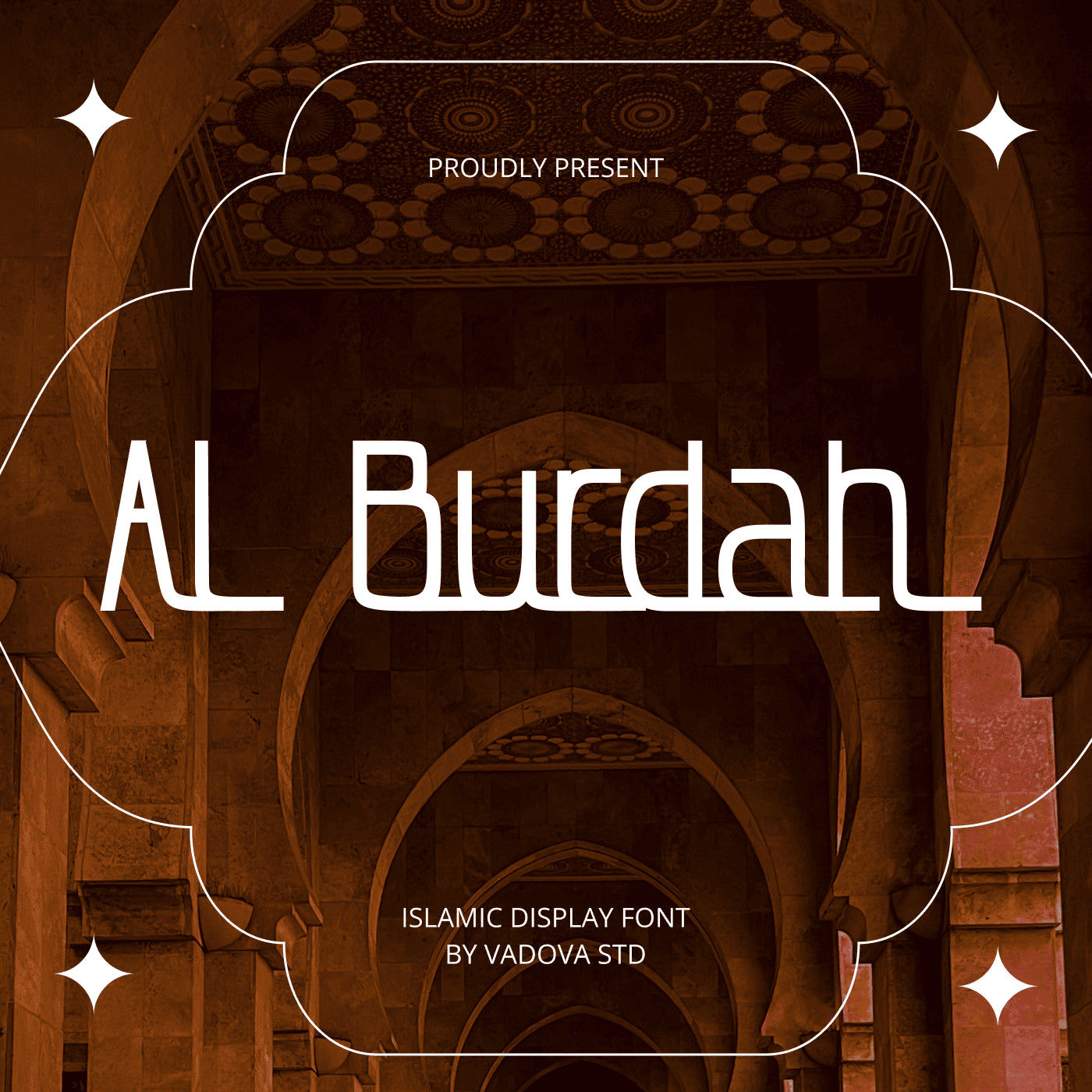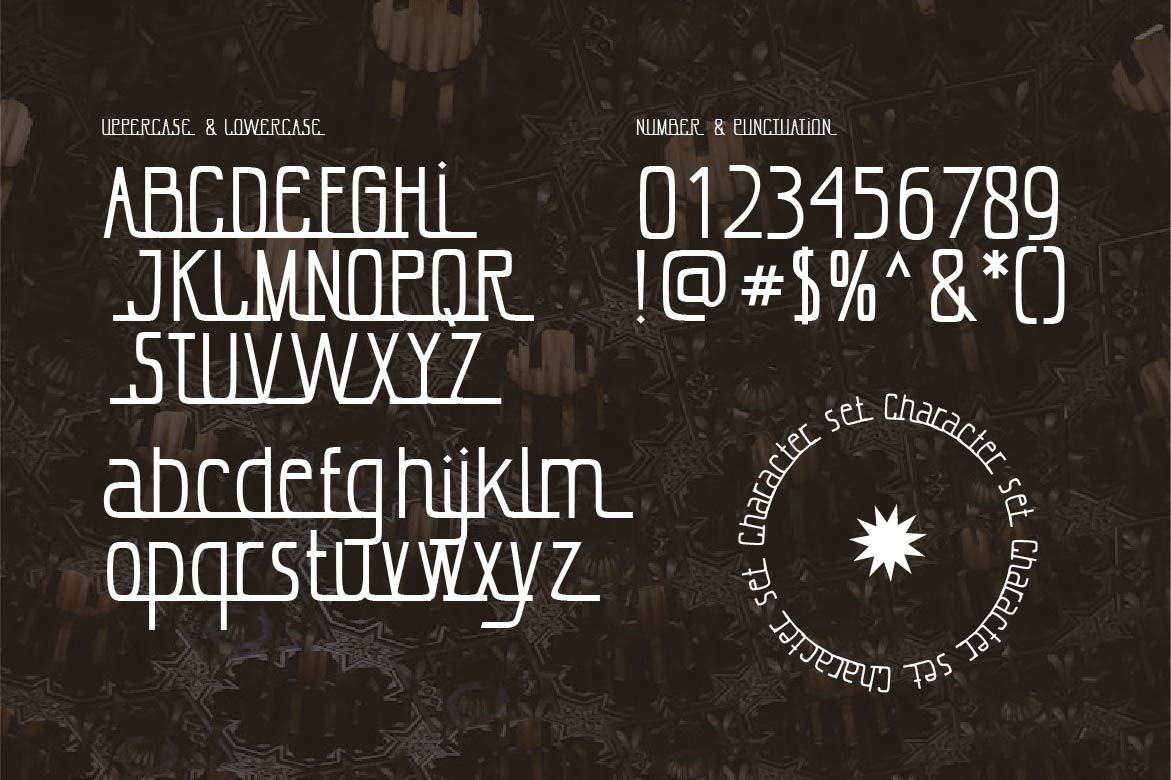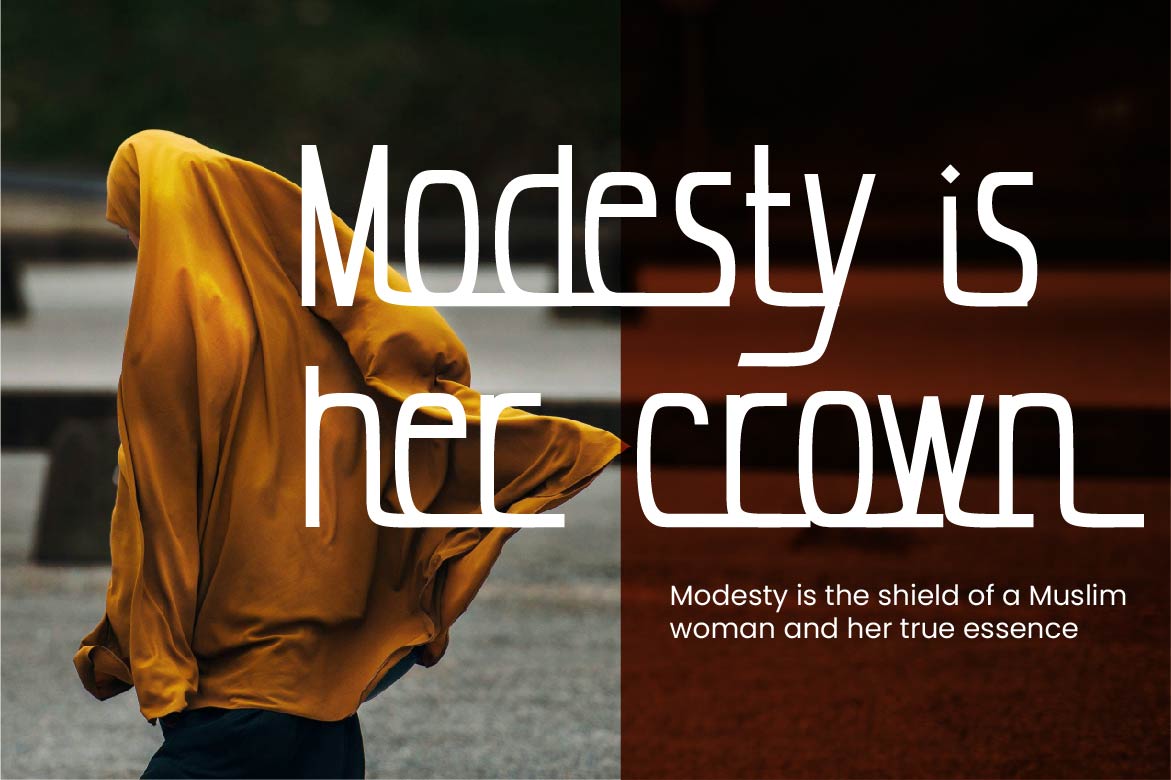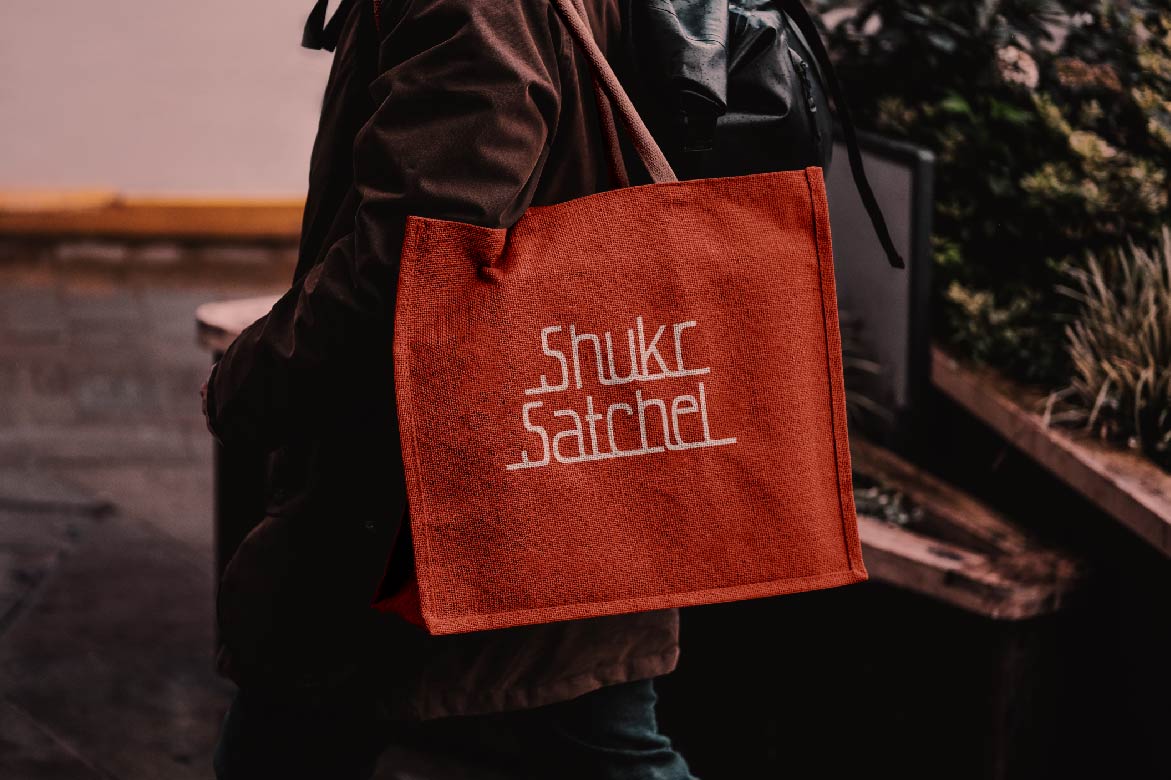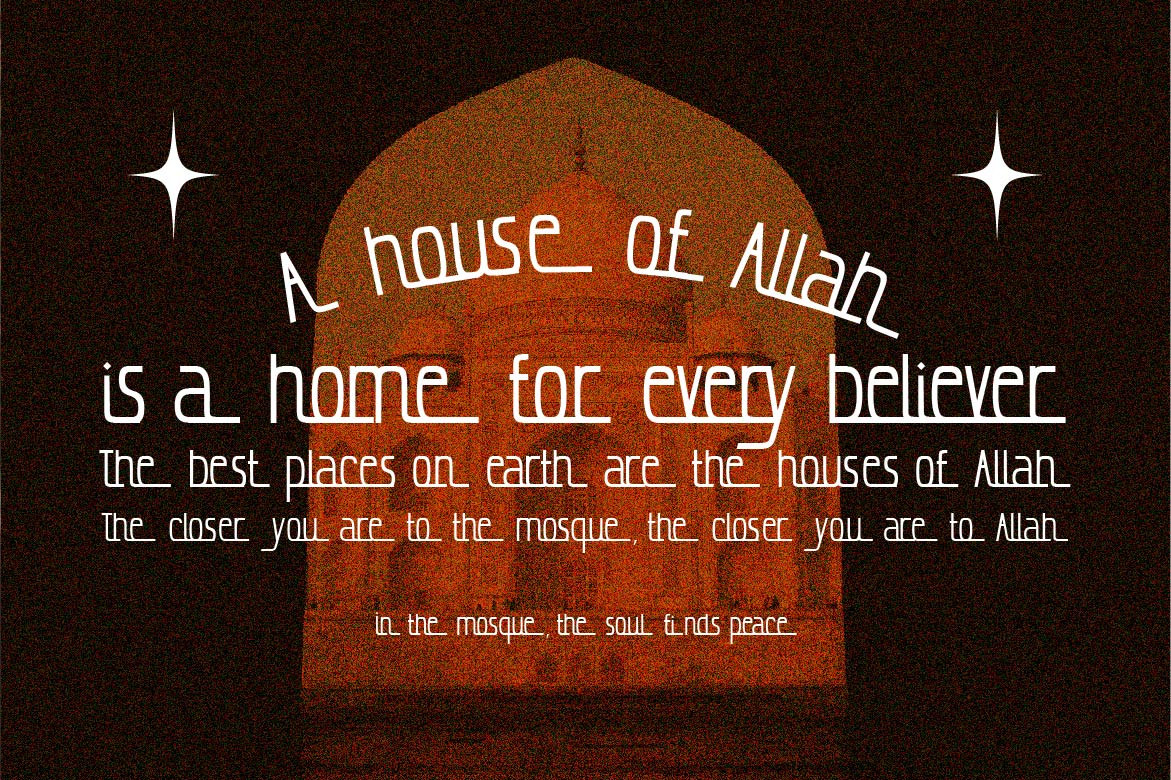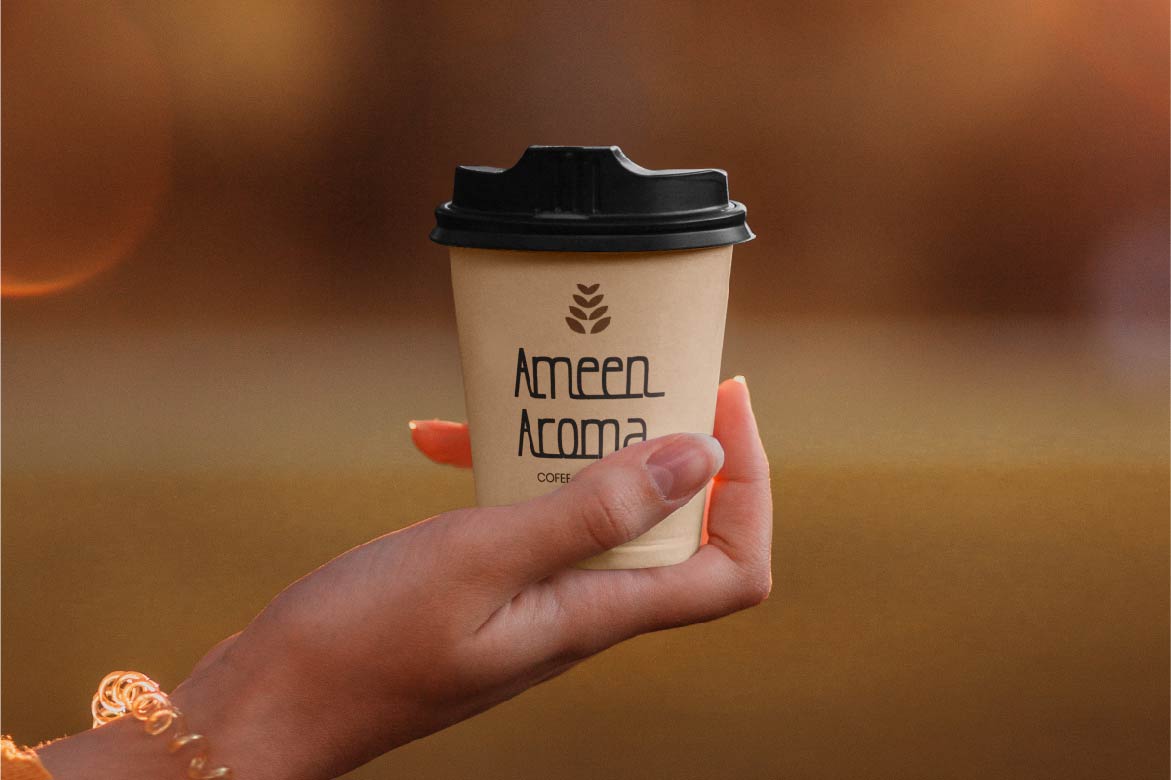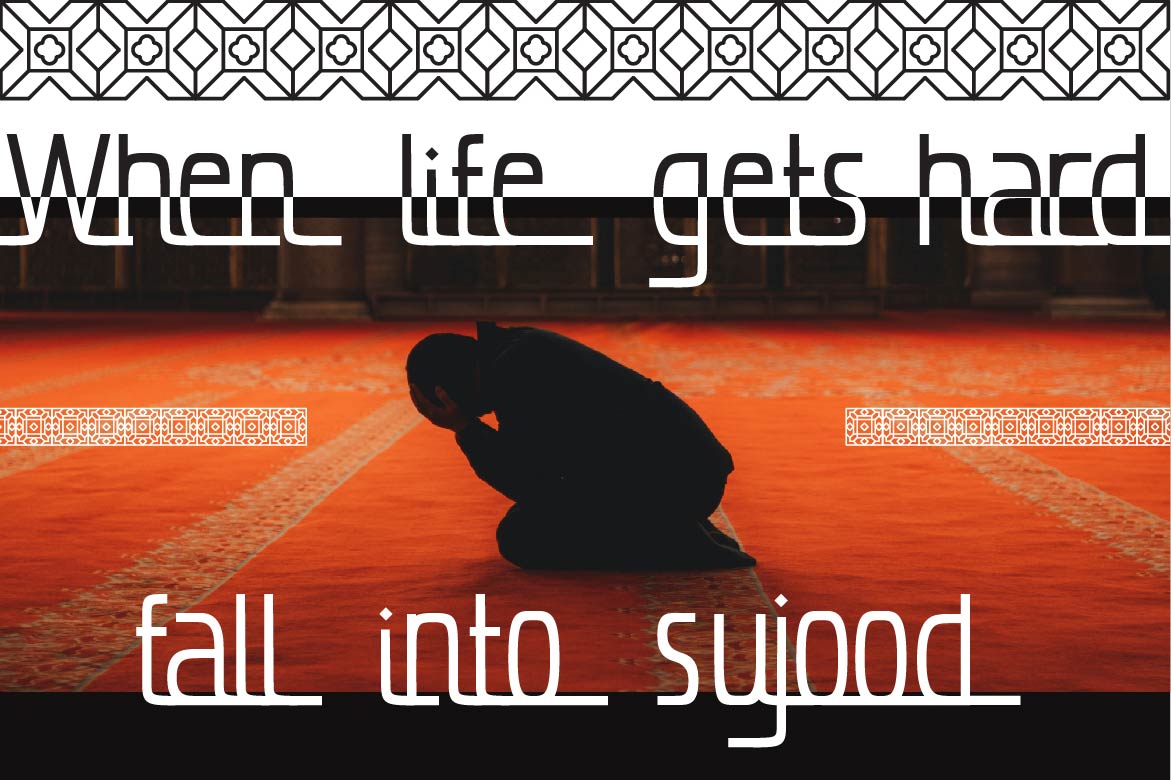
Al Burdah Islamic Display Font
Al Burdah is a distinctive Islamic display font that carries a unique and elegant cultural vibe. Its letterform structure appears to be inspired by traditional Islamic calligraphy, featuring flowing lines and unique decorative elements integrated into a modern display style. This font is particularly well-suited for branding projects seeking an authentic Islamic aesthetic, cultural event posters and invitations, and editorial designs related to Islamic art and heritage. Its elegant and unique character also makes it ideal for packaging of culturally significant products and for creating a sophisticated and respectful tone in various design applications.
Suitable for Islamic branding, cultural event posters, Islamic art publications, elegant invitations, Muslim community designs, Ramadan and Eid promotions, Islamic education materials, Middle Eastern restaurant branding, cultural festival banners, mosque or foundation websites, Islamic fashion campaigns, halal product branding, calligraphy-inspired artwork, museum exhibition graphics, spiritual book covers, Islamic finance communications, travel agency promotions for Islamic destinations, documentary titles on Islamic culture, and designs celebrating Islamic traditions.
The Al Burdah Islamic Display Font is a unique typeface inspired by traditional Islamic calligraphy, featuring flowing lines and decorative elements in a modern style. It is available in TTF, OTF, and WOFF formats, includes uppercase and lowercase characters, as well as numerals and punctuation.